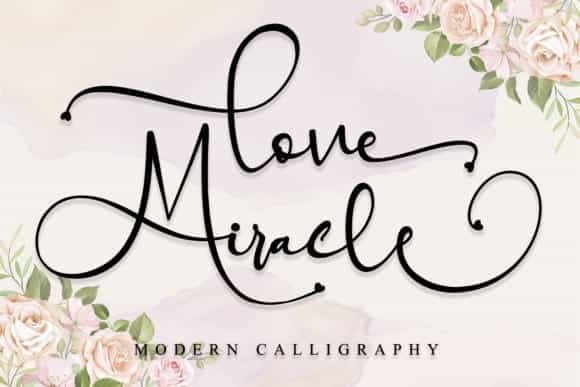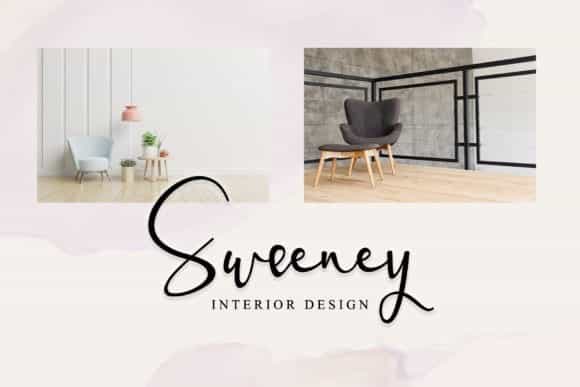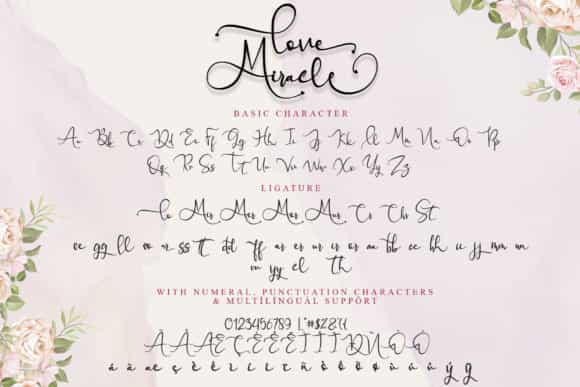
Meet Love Miracle. A script font blending elegance with handwritten charm. Ideal for adding an stylish flair to projects requiring beautiful lettering. Love Miracle is great for watermarks, social media content, ads, branding elements like logos, invitations, product designs, labels, wedding materials, packaging designs—anything that calls for lettering.